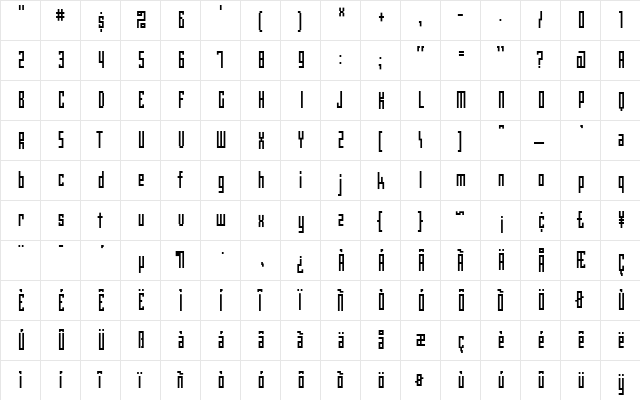
BoxGothic Regular
Design Context for BoxGothic Typeface
BoxGothic has the quiet confidence of well-executed sans-serif typography: versatile, unobtrusive, and dependable at any size.
Font Pairing: Works well alongside a characterful serif or display font that can carry the expressive load while BoxGothic handles the functional copy.
Pro Tip: Use BoxGothic for UI labels, navigation, and short-form body copy where clean legibility is the priority.